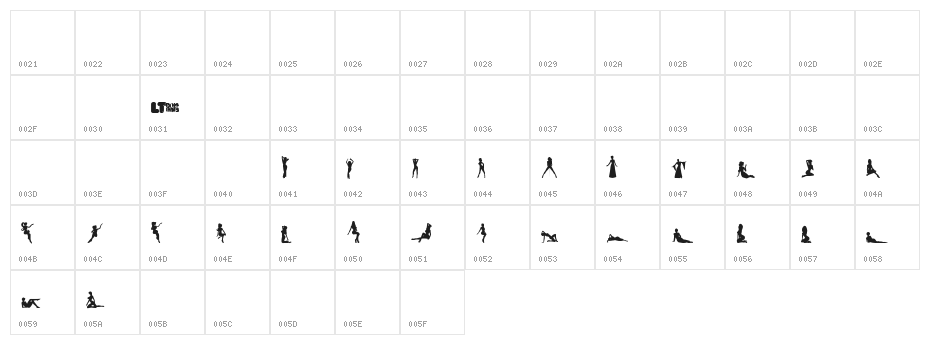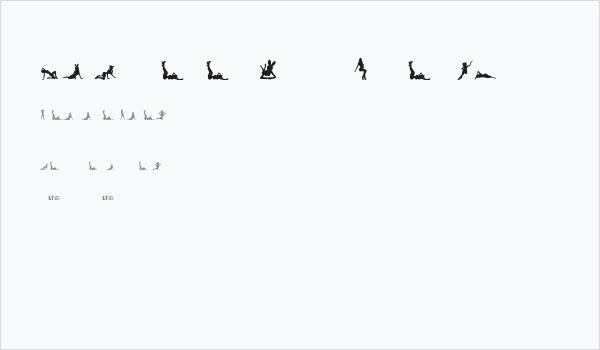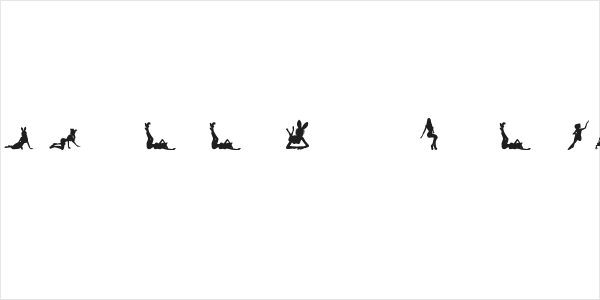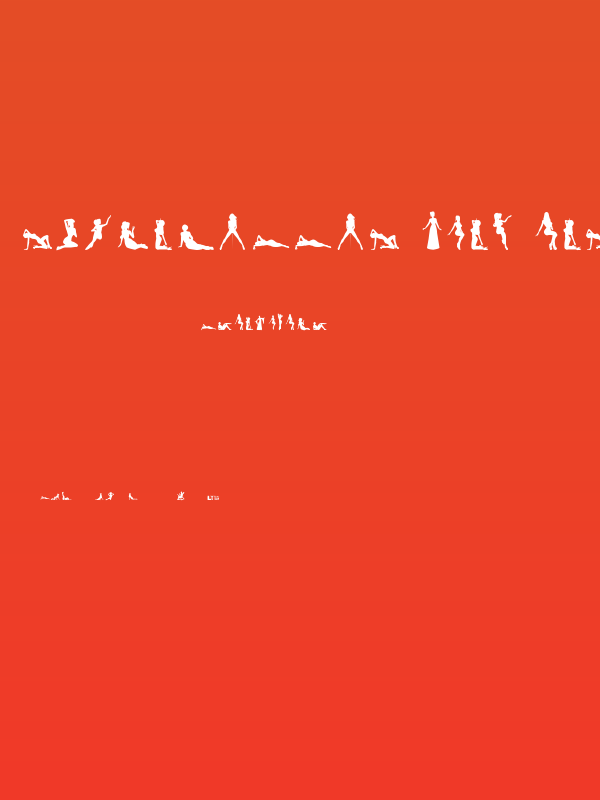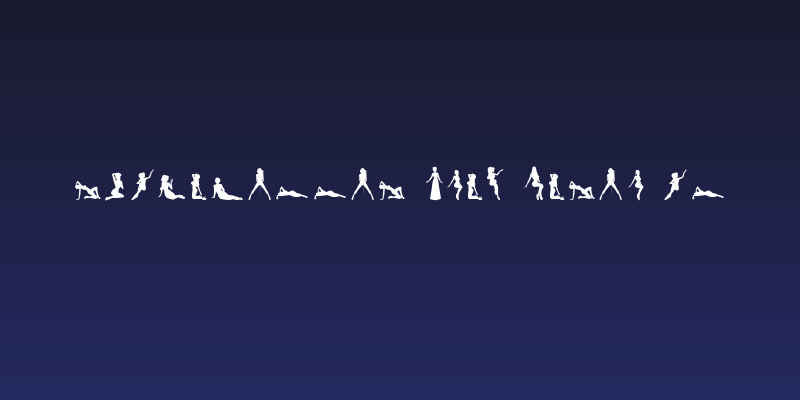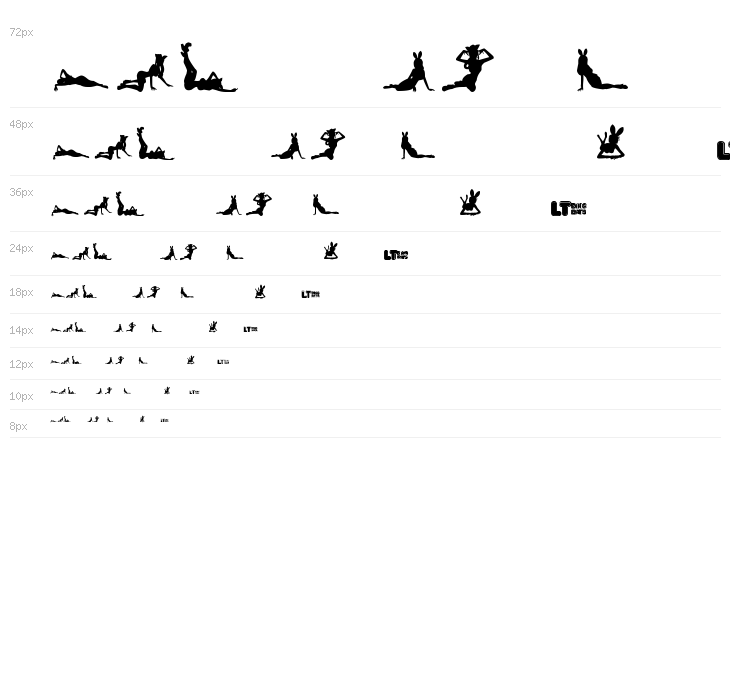
Silhouettes from Poser LT Font
Silhouettes from Poser LT Description
A collection of silhouette dingbats featuring various human poses, primarily of women in dynamic, seated, or standing positions, along with a bold, rounded sans-serif text for 'LT dingbats.' The silhouettes are solid black and highly stylized, designed for decorative or illustrative purposes rather than textual communication.
| Use Case | Decorative elements, branding, visual accents |
| Proposed Projects | Posters, flyers, decorative graphics, themed party invitations, visual accents in design projects. |